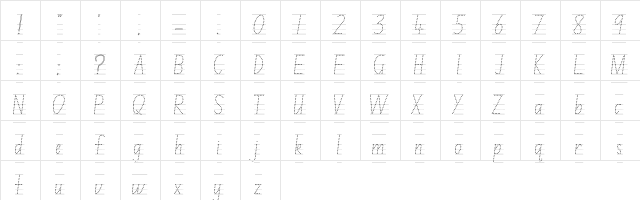
NSW ACT Handwriting Guide Regular
| Designer | DaShiz |
Design Context for NSW ACT Handwriting Guide Typeface
NSW ACT Handwriting Guide flows with the natural rhythm of handwritten lettering, making it ideal for designs that call for warmth and personal expression.
Font Pairing: Combine NSW ACT Handwriting Guide with a simple geometric sans for maximum contrast — the tension between flowing curves and clean structure is a classic typographic pairing.
Pro Tip: Pair NSW ACT Handwriting Guide with a clean sans-serif for supporting text. The contrast between fluid script and geometric structure creates an elegant typographic hierarchy.